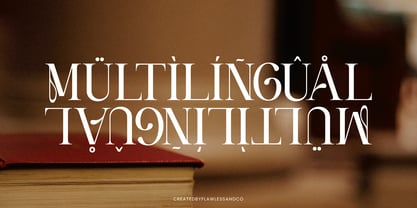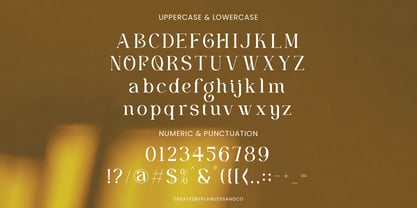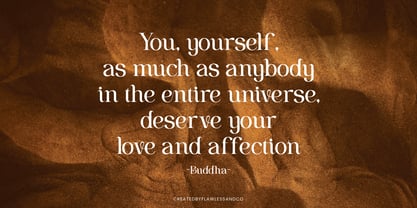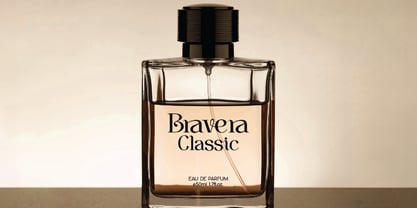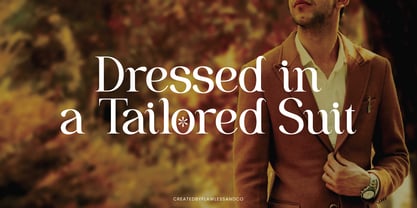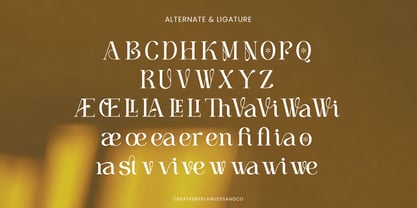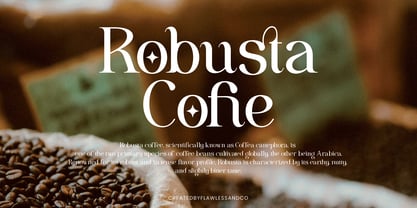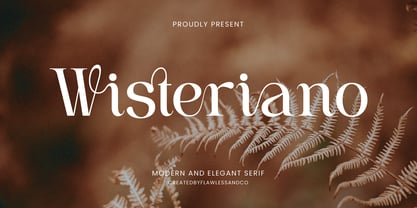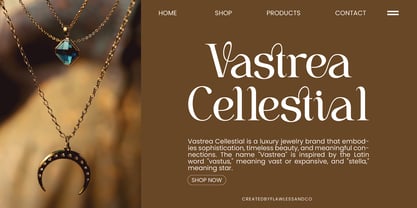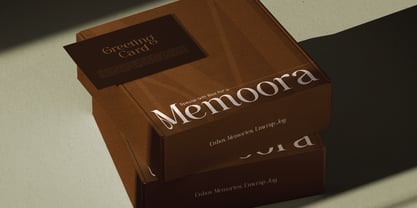
Wisteriano
by Flawlessandco
The Wisteriano Font Family was designed by Achmad Yani and published by Flawlessandco. Wisteriano contains 1 styles. More about this family
Wisteriano is a modern and elegant serif font that blends timeless sophistication with a contemporary feel. Featuring graceful curves and refined details, this typeface is perfect for branding, wedding invitations, editorial layouts, luxury packaging, and high-end fashion designs. Wisteriano adds a touch of class and beauty to any project that calls for a polished and stylish presentation.
Features :
Multilingual, Uppercase alphabet A-Z, Lowercase alphabet a-z, Numbers 0-9, Some punctuation, Alternates & Ligatures
Designers: Achmad Yani
Foundry: Flawlessandco